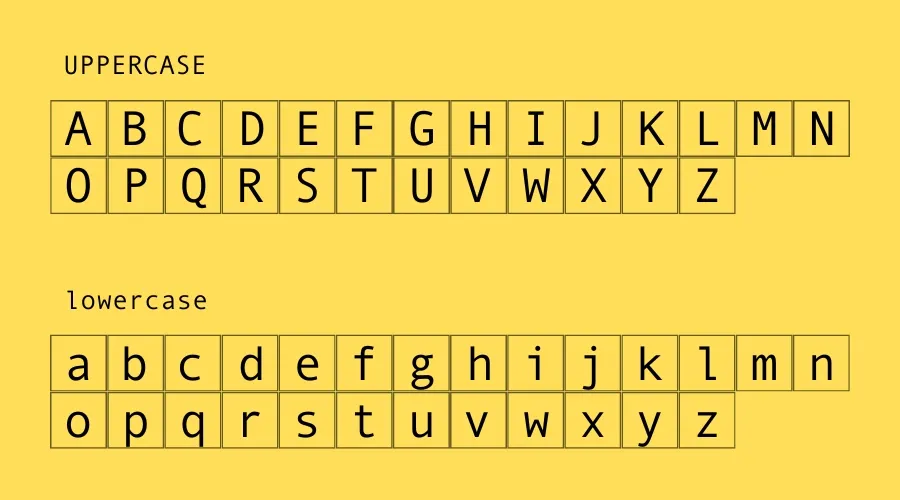
Andale Mono Font
About Andale Mono Font
Steve Matteson created the monospaced sans serif font Andale Mono is used for application development platforms and reproduction, initially for the Taligent venture by Apple Inc. and IBM. Characters in this font have an appealing and smooth appearance.
There are 94 sharp glyphs in this typeface, including digits and common punctuation. It features 1024 units per em and more than 101 distinct glyphs.
This font's glyphs work best for a variety of text needs. Characters in this typeface with a comic book aesthetic work best for many character design applications. This font is very close to the euro sans font.